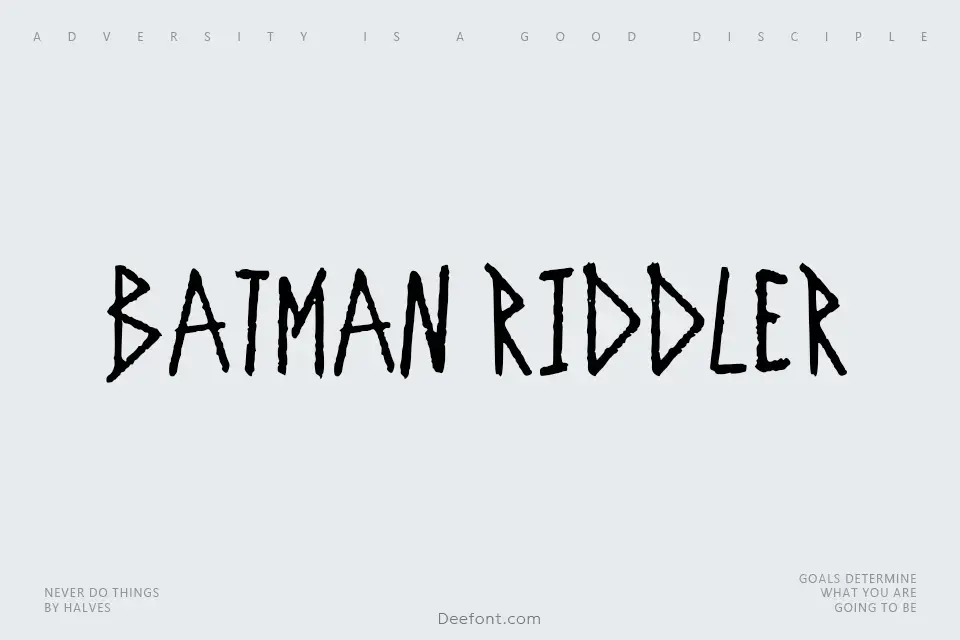
Batman Riddler Font
The Batman Riddler font captures a cryptic, unhinged aesthetic with its jagged, hand-scrawled letterforms. Each character is rendered with an uneven, trash-style stroke, creating an intense and mysterious atmosphere. This decorative script is ideal for projects that require a villainous or chaotic tone, such as horror titles, comic book lettering, and edgy branding.